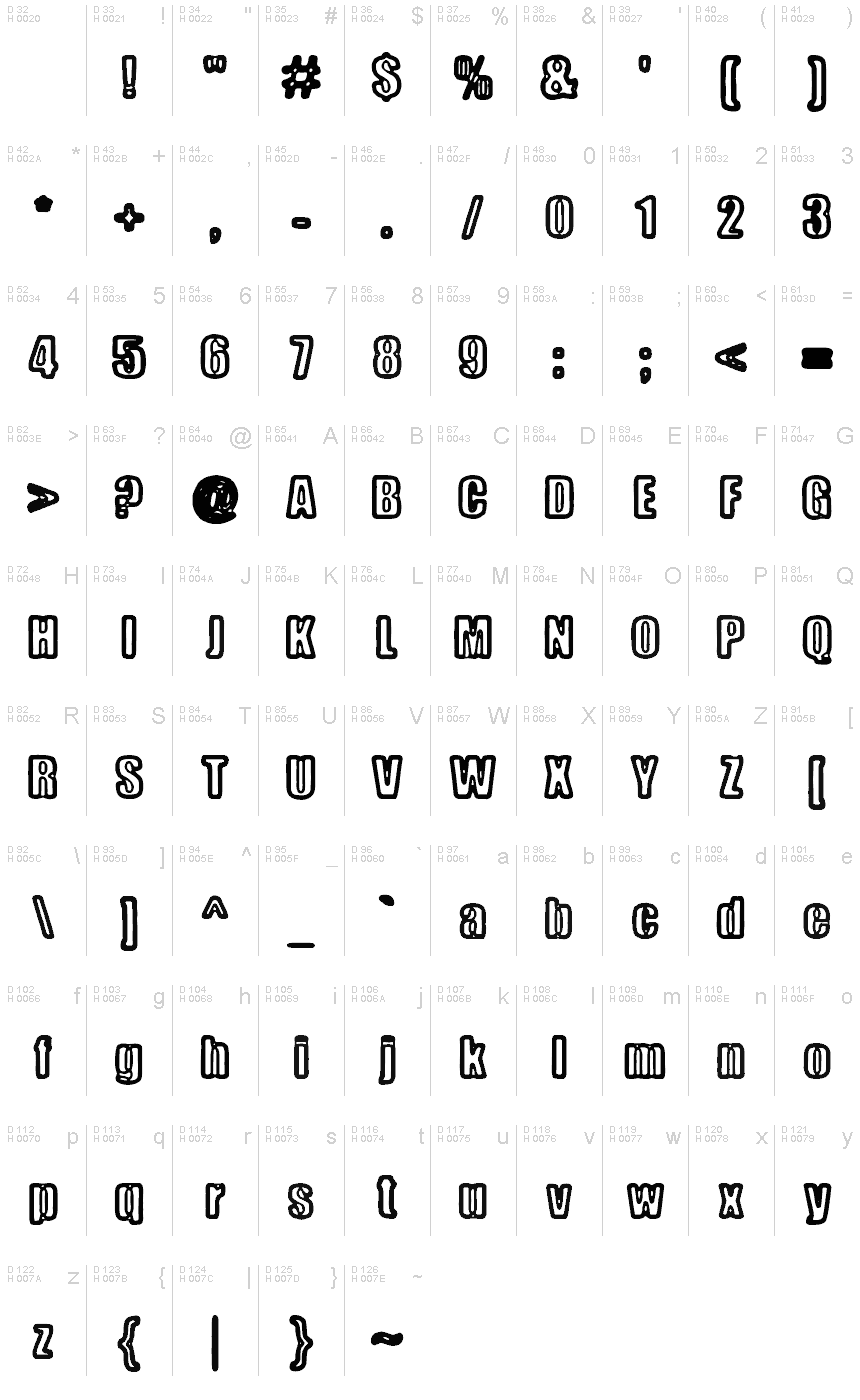
Metalbox
Metalbox is a bold, condensed display font designed by junkohanhero
that exudes a distinct, eroded aesthetic. The jagged, outlined letterforms possess a commanding presence, evoking an industrial and weathered sensibility.
This unique font style seamlessly bridges the gap between modern and vintage, making it an excellent choice for a wide range of design applications, from eye-catching headlines to impactful branding and packaging. Its condensed width allows for versatile typographic compositions, while the striking visual impact ensures Metalbox leaves a lasting impression on the viewer.
This font's versatility and distinctive character make it a compelling option for designers seeking to infuse their work with a touch of edgy, industrial flair.
that exudes a distinct, eroded aesthetic. The jagged, outlined letterforms possess a commanding presence, evoking an industrial and weathered sensibility.
This unique font style seamlessly bridges the gap between modern and vintage, making it an excellent choice for a wide range of design applications, from eye-catching headlines to impactful branding and packaging. Its condensed width allows for versatile typographic compositions, while the striking visual impact ensures Metalbox leaves a lasting impression on the viewer.
This font's versatility and distinctive character make it a compelling option for designers seeking to infuse their work with a touch of edgy, industrial flair.